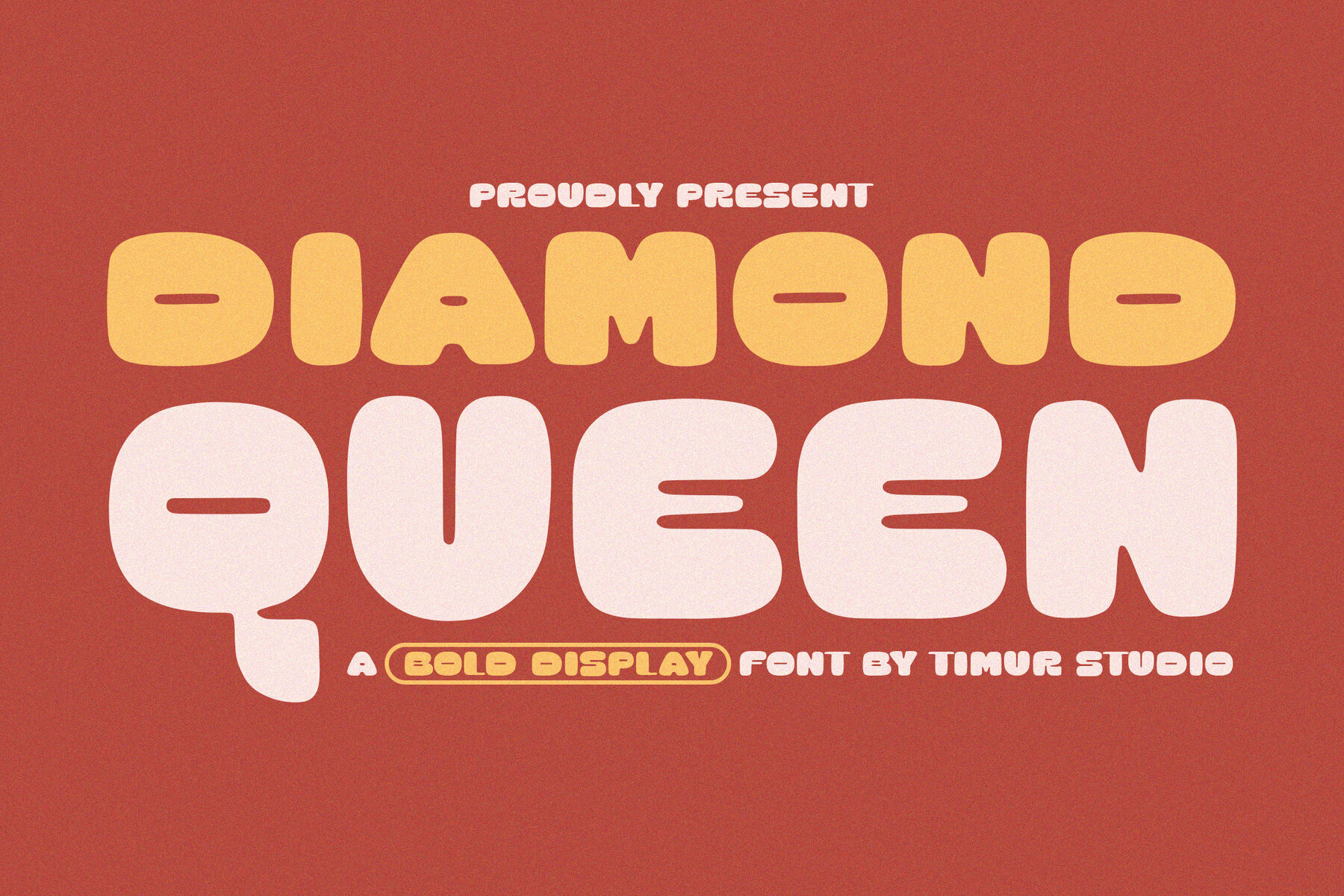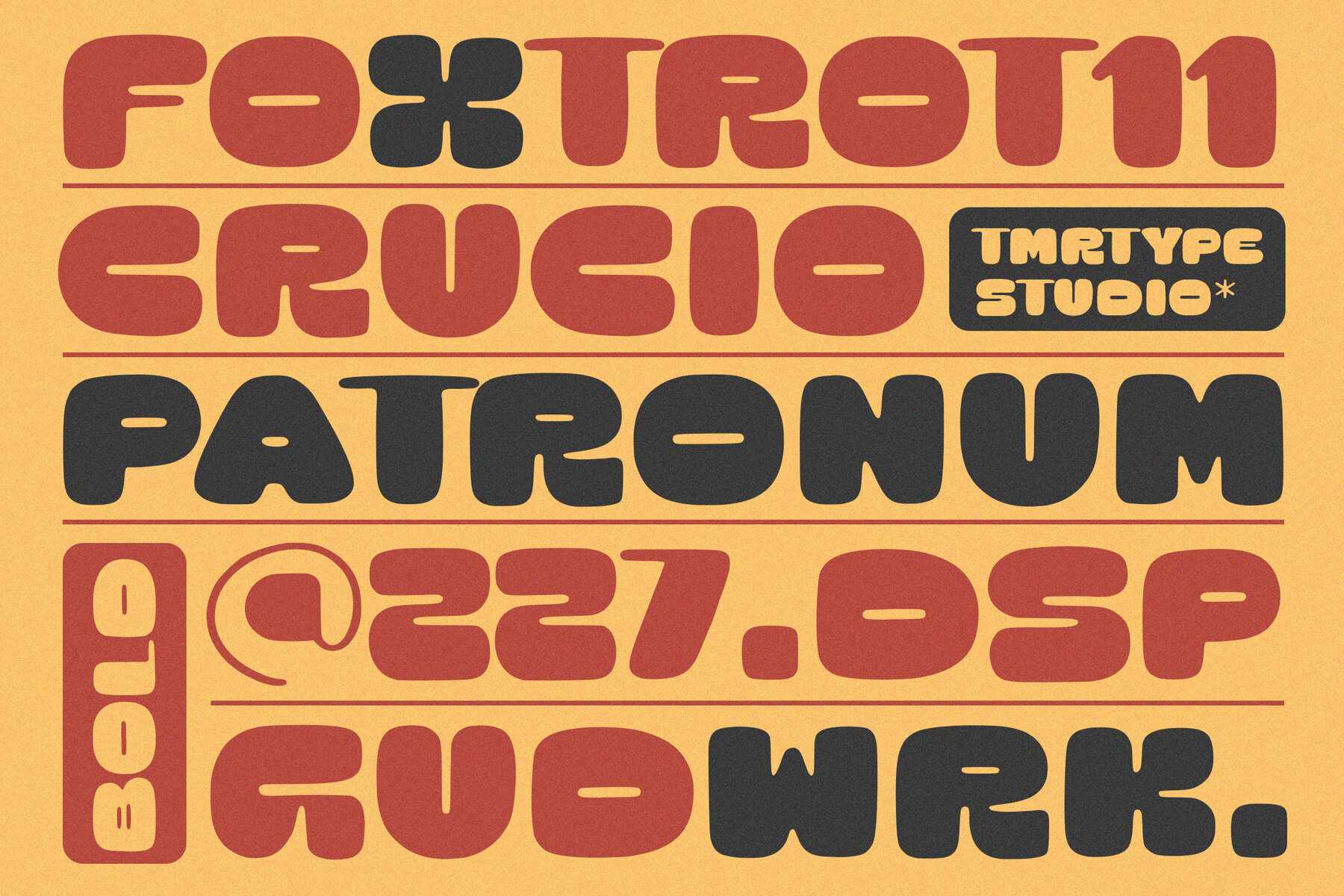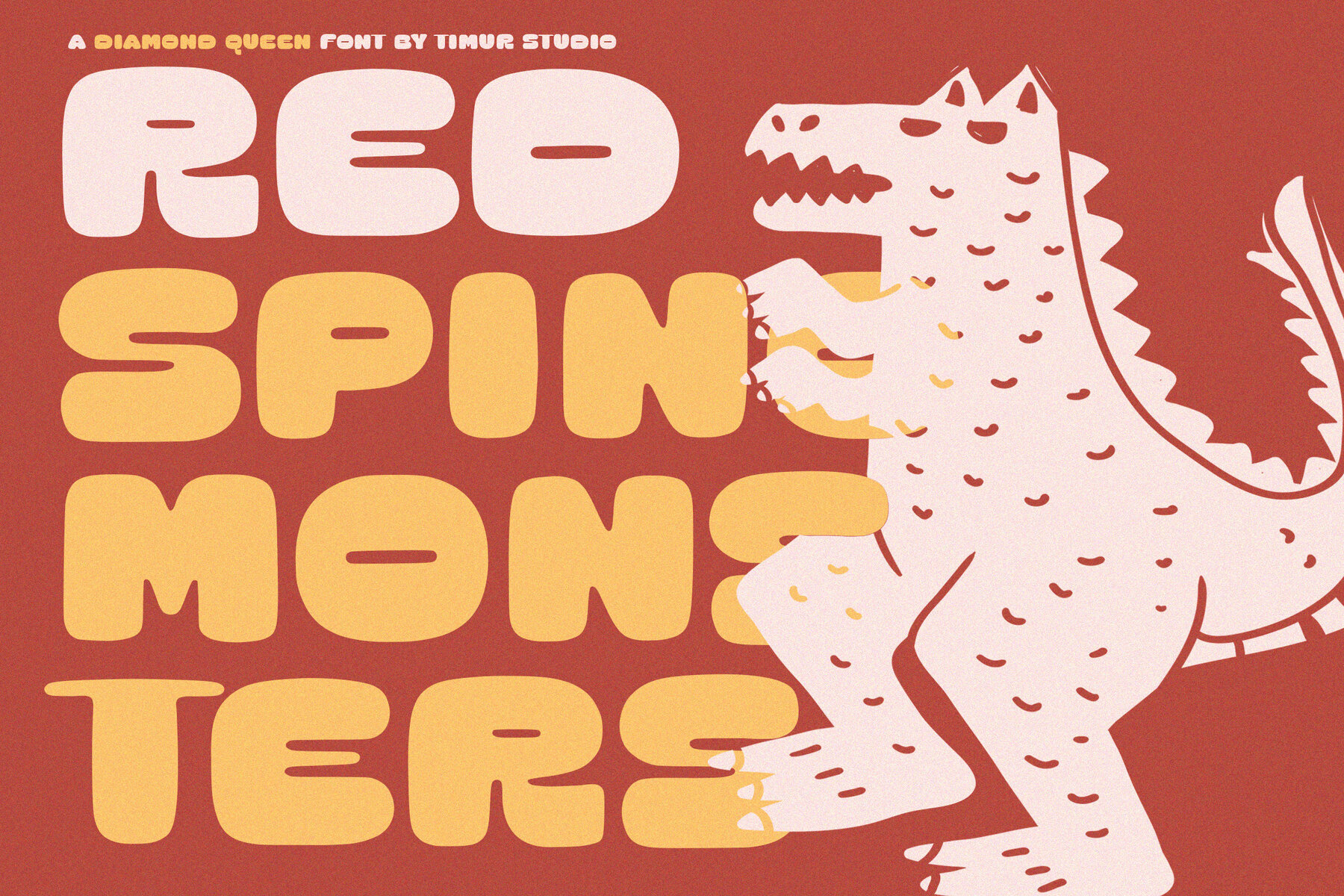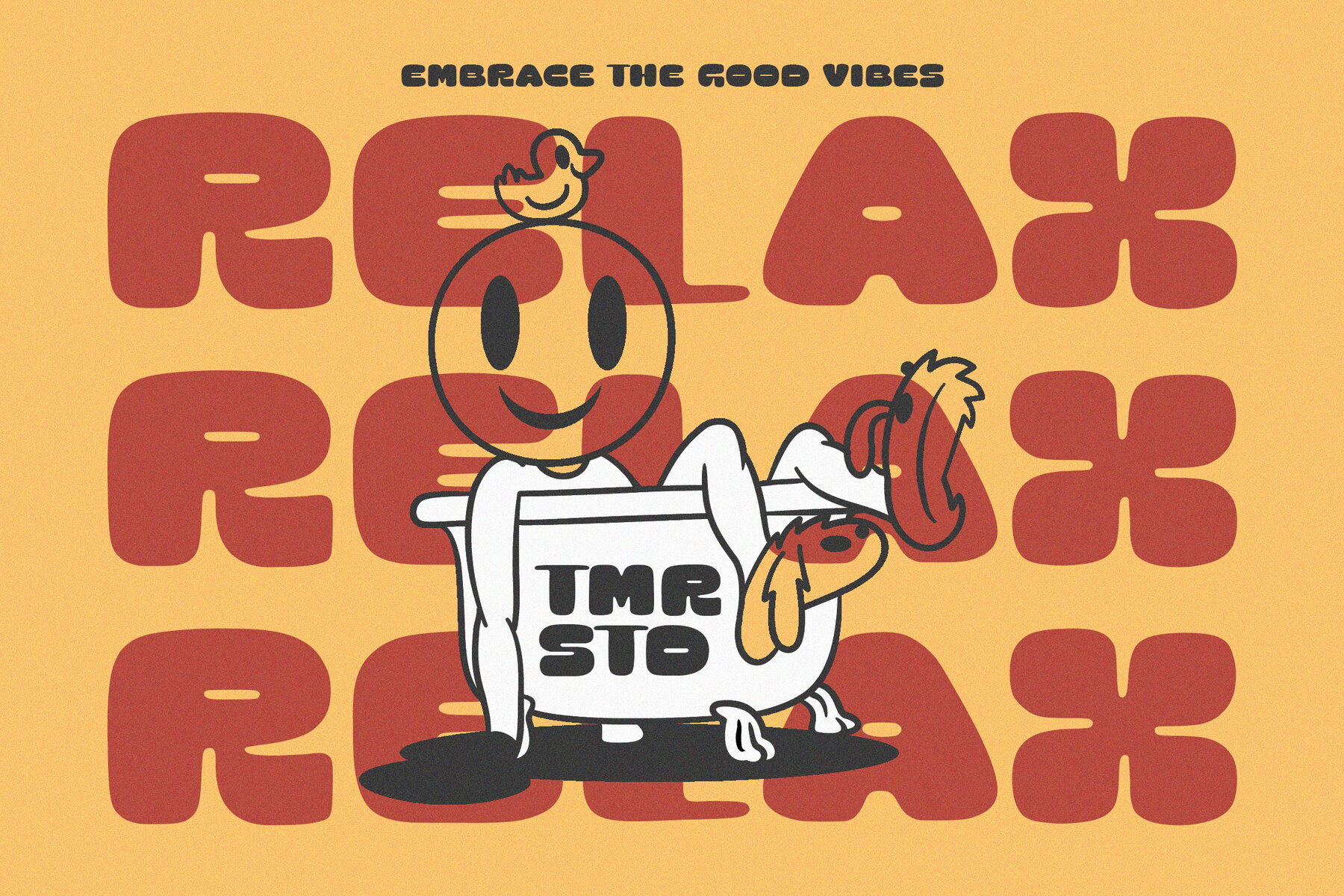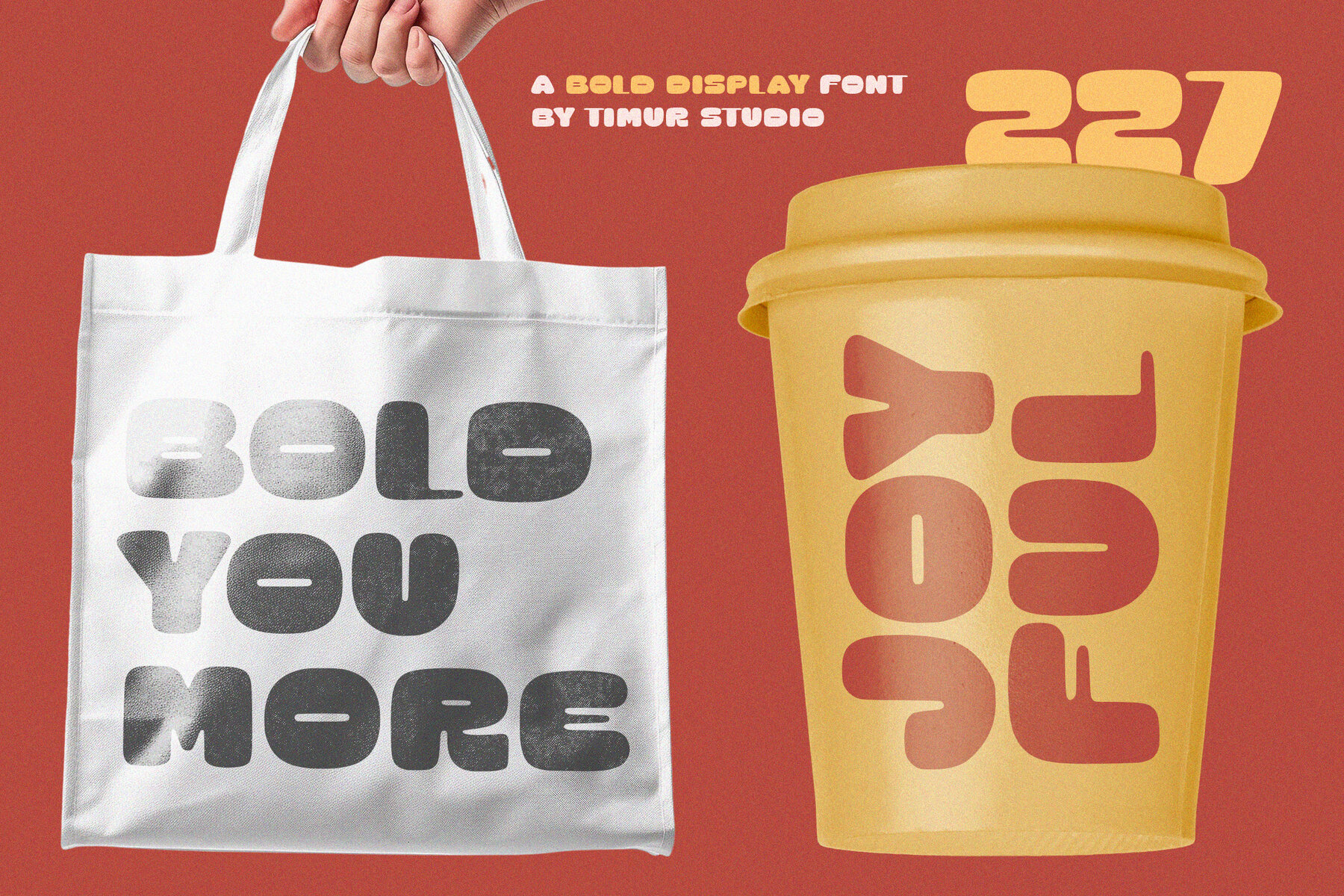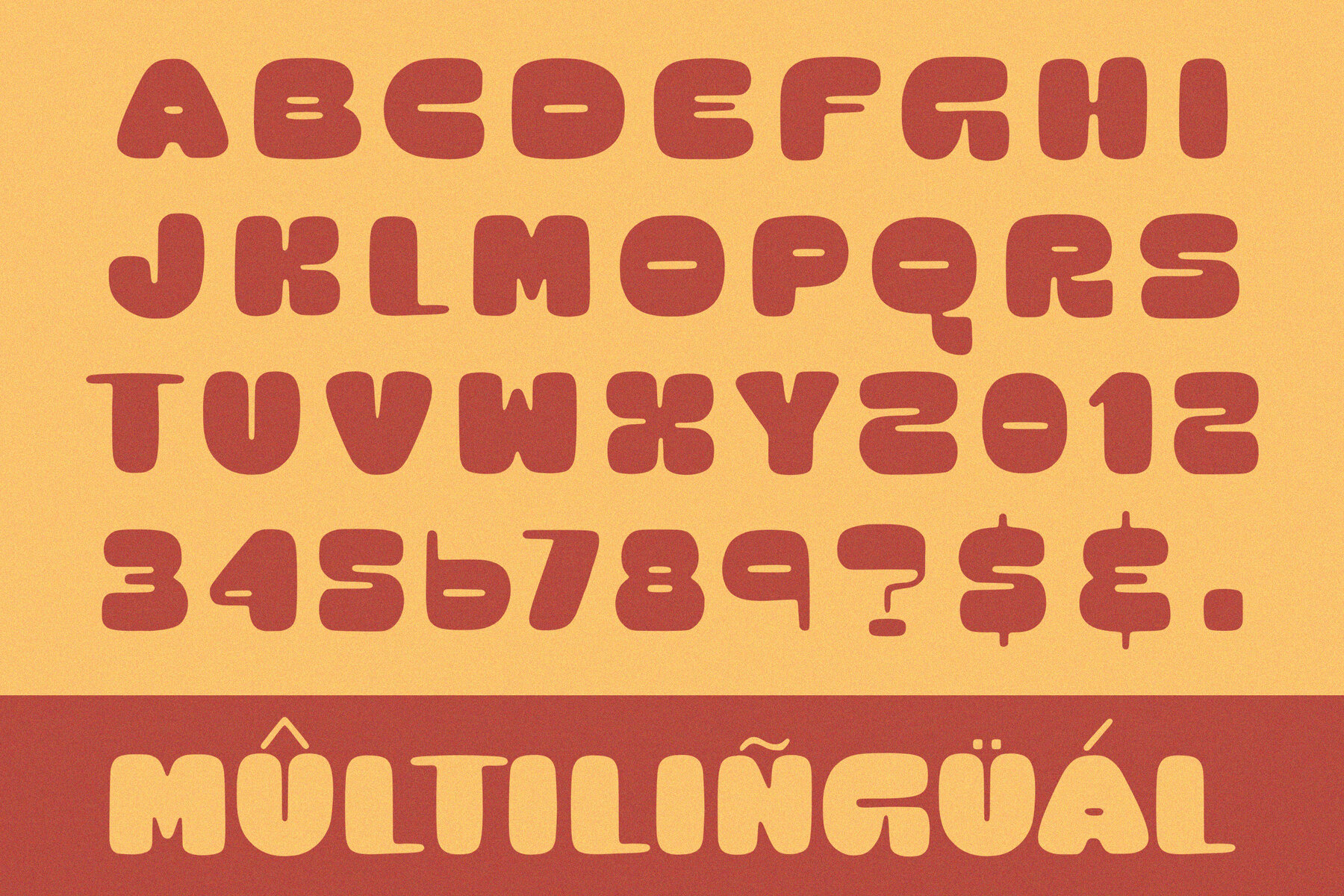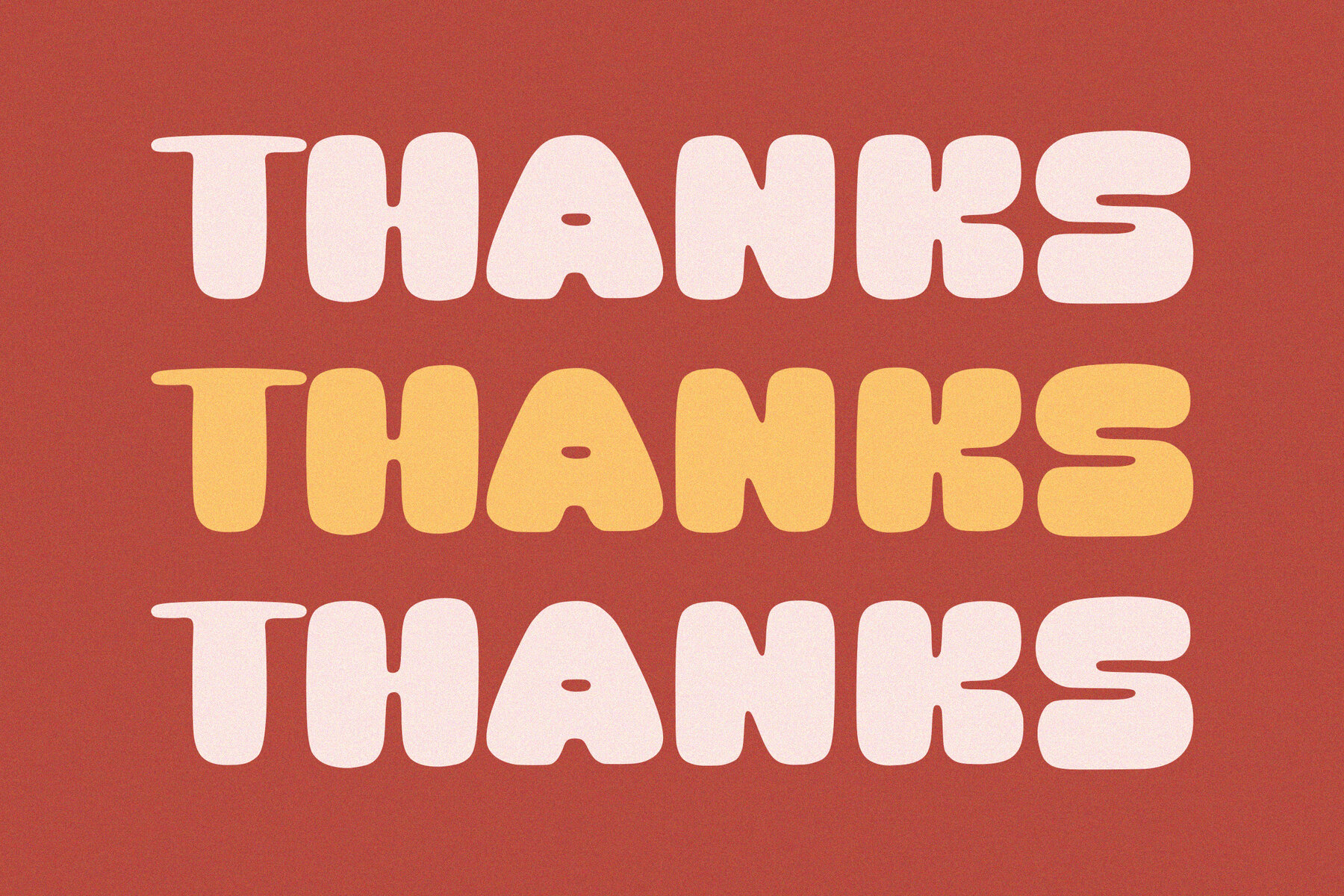
Diamond Queen Font
Diamond Queen
Diamond Queen is a bold display font that exudes elegance and grandeur, drawing attention with its sharp, angular lines and precise geometric structure. Designed for versatility, it is an ideal choice for headlines, posters, and high-impact branding projects. The font delivers a touch of luxury and refinement, effortlessly blending modern sophistication with timeless regality.
Incorporating Diamond Queen into your designs ensures a strong visual impact, making it a standout element in projects that require both style and presence. The combination of its distinct characteristics and bold aesthetic provides designers with a powerful tool for crafting engaging and memorable visual content.